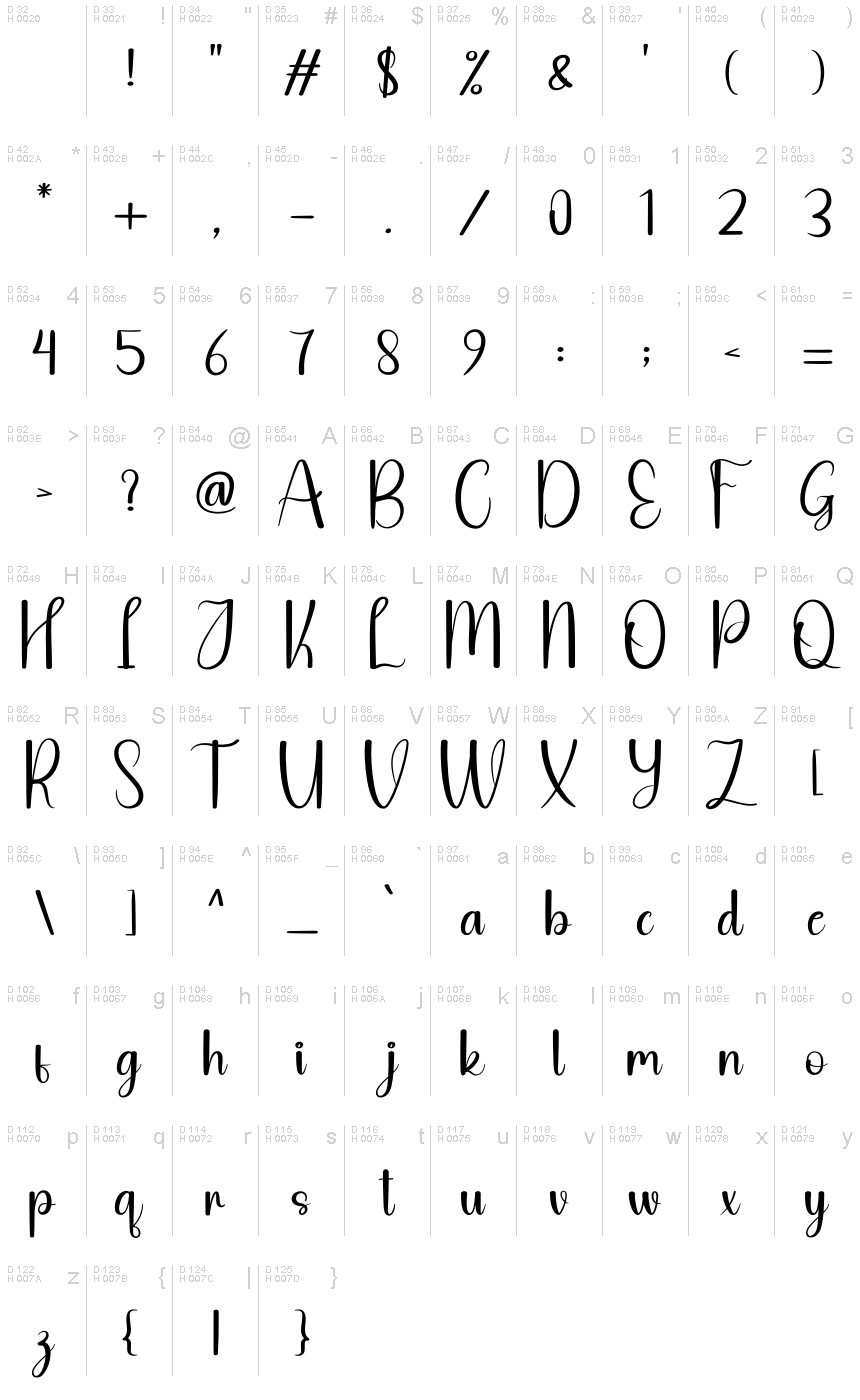
Writing Creative
Writing Creative is a captivating handwritten font that exudes a sense of artistry and personal expression. Its elegant, flowing lines and organic curves lend a touch of warmth and authenticity to any project. The font's unique character is accentuated by its playful, slightly irregular strokes, creating a handcrafted aesthetic that can elevate designs ranging from logos and branding to wedding invitations and editorial layouts. With its versatile style, Writing Creative is a powerful tool for designers seeking to infuse their work with a genuine, handmade touch.
The font's adaptability makes it suitable for a wide array of applications. Its refined yet whimsical nature lends itself beautifully to crafting memorable brand identities, while its legibility and approachability make it an excellent choice for creating engaging, personalized content. Whether used for short headlines, body text, or decorative elements, "Writing Creative" has the ability to breathe life into any design, imbuing it with a touch of authentic, human-centered flair.